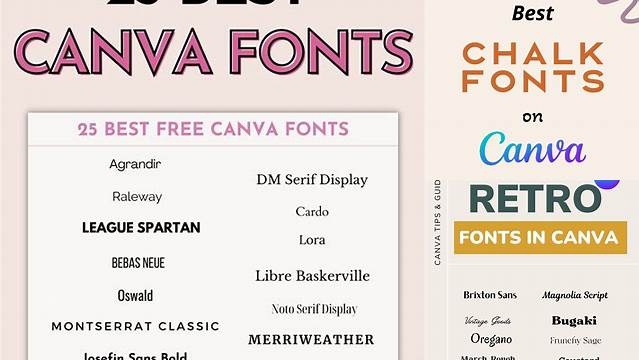
Best Free Canva Fonts: Reddit's Top Picks For 2024
Hey guys! Ever found yourself scrolling through Reddit, desperately seeking the perfect font to elevate your Canva design? You're not alone! Finding the best free Canva fonts can feel like searching for a needle in a haystack, especially with so many options available. But fear not, because we're about to dive deep into the world of Canva typography and uncover some hidden gems that will make your designs pop without costing you a dime. Whether you're crafting social media graphics, presentations, or posters, the right font can make all the difference. So, let's explore the best free Canva fonts Reddit users rave about and discover how to use them to create stunning visuals.
1. Top 10 Free Canva Fonts According to Reddit
So, you're probably wondering, what are the absolute best free Canva fonts that the Reddit community loves? Well, you've come to the right place! We've scoured the forums, read the threads, and compiled a list of the top 10 fonts that get consistent praise. These fonts are not only free but also incredibly versatile, suitable for a wide range of design projects. Think sleek and modern sans-serifs, elegant serifs, and even some fun and quirky display fonts. Each font on this list has been tried and tested by countless designers, ensuring that they'll deliver professional-looking results without breaking the bank. Remember, the right font can transform your design from bland to brilliant, so let's jump in and discover your new favorite! The best free Canva fonts can make a world of difference in the overall aesthetic and impact of your design. It’s not just about choosing something that looks pretty; it’s about selecting a typeface that communicates your message effectively, complements your brand, and resonates with your audience. For instance, if you're creating a logo for a tech startup, you might lean towards a clean, modern sans-serif font. On the other hand, a more traditional business might benefit from an elegant serif font. Understanding the nuances of typography can significantly enhance the professional appeal of your work.
2. Sans-Serif Fonts: Reddit's Favorite Free Options
Sans-serif fonts are often lauded for their clean lines and modern aesthetic, making them a staple in many design projects. The best free Canva fonts in this category are incredibly versatile, working well for everything from body text to headlines. Reddit users particularly appreciate sans-serif fonts for their readability and versatility, especially in digital formats. Think about it – you see sans-serif fonts everywhere, from website navigation to app interfaces, and for good reason. They're easy on the eyes and project a sense of clarity and efficiency. When browsing Reddit threads, you'll often find discussions about fonts like Montserrat, Open Sans, and Lato, which are all excellent choices available for free on Canva. These fonts offer a range of weights and styles, giving you plenty of options to play with. For example, you could use Montserrat Bold for headlines and Montserrat Regular for body text, creating a cohesive and visually appealing layout. Exploring different sans-serif options can open up a world of design possibilities, helping you create everything from minimalist posters to impactful social media graphics. The key is to experiment and see what feels right for your specific project and brand identity. Keep in mind that the best font is one that aligns with your message and enhances the overall user experience.
3. Serif Fonts: Best Free Choices According to Reddit Users
Serif fonts, with their distinctive strokes or “serifs” at the ends of letters, often convey a sense of tradition, elegance, and authority. When it comes to the best free Canva fonts in this category, Reddit users have some strong opinions. Many designers gravitate towards serif fonts for projects that require a touch of sophistication, such as book covers, invitations, or formal documents. Think about the classic look of Times New Roman or Georgia – these fonts have been used for decades in print media for their readability and timeless appeal. However, Canva offers a range of modern serif fonts that are just as versatile and visually striking. Fonts like Playfair Display and Merriweather are frequently mentioned in Reddit discussions as top choices for headings and body text, respectively. Playfair Display, with its high contrast and elegant curves, is perfect for creating eye-catching titles, while Merriweather’s sturdy design ensures readability even at smaller sizes. Experimenting with different serif fonts can add depth and character to your designs, helping you create a visual hierarchy and guide the viewer’s eye. Just remember to consider the overall tone and message of your project when making your selection. A well-chosen serif font can elevate your design and communicate a sense of professionalism and polish.
4. Script Fonts: Free and Stylish Options on Canva (Reddit Approved)
If you're looking to add a touch of personality and flair to your designs, script fonts are the way to go. These fonts mimic the fluidity of handwriting, making them perfect for invitations, logos, and other projects where you want to convey a sense of warmth and authenticity. However, finding the best free Canva fonts in the script category can be tricky. Not all script fonts are created equal – some can be difficult to read, while others may lack the professional polish you're aiming for. That's where Reddit comes in! Designers on Reddit often share their favorite free script fonts on Canva, offering valuable insights and recommendations. Popular choices include Pacifico, a casual and friendly script, and Great Vibes, an elegant and flowing option. These fonts can add a touch of sophistication to your designs, making them stand out from the crowd. When using script fonts, it's important to use them sparingly. Overusing them can make your design look cluttered and hard to read. Instead, use them for headings or short phrases, pairing them with a clean sans-serif font for body text. This creates a balanced and visually appealing design. Experimenting with different script fonts can add a unique touch to your projects, helping you create designs that are both stylish and memorable. Just remember to choose a font that is legible and aligns with the overall tone of your message.
5. Display Fonts: Unique Free Choices Recommended by Reddit
Display fonts are the attention-grabbers of the typography world. These fonts are designed to be eye-catching and memorable, making them ideal for headlines, posters, and other projects where you want to make a statement. However, with so many display fonts available, finding the best free Canva fonts can feel overwhelming. Reddit users often share their favorite hidden gems in this category, offering a wealth of inspiration for designers looking to push the boundaries of creativity. Think about the bold, quirky fonts you see on movie posters or the vintage-inspired typefaces used in retro advertising. Display fonts can add a unique personality to your designs, helping you create a distinct visual identity. Some popular free display fonts on Canva include Bebas Neue, a tall and impactful sans-serif, and Oswald, a versatile font that works well for both headlines and body text. These fonts offer a range of styles and weights, giving you plenty of options to play with. When using display fonts, it's important to consider the context of your design. A font that looks great on a poster might not be suitable for a business card. Experiment with different combinations and see what works best for your specific project. The key is to find a font that captures the essence of your message and helps you stand out from the crowd. A well-chosen display font can be the secret ingredient that transforms your design from ordinary to extraordinary.
6. Pairing Fonts: Free Canva Font Combinations Reddit Loves
Choosing the right font is just half the battle. To create truly stunning designs, you need to master the art of font pairing. The best free Canva fonts can look even better when combined thoughtfully, creating a visual harmony that enhances the overall message. Reddit users frequently discuss their favorite font pairings, offering valuable insights and inspiration for designers of all levels. Think of font pairing like creating a musical composition – you want to choose fonts that complement each other, creating a balanced and visually appealing result. A classic pairing is a sans-serif font for headlines with a serif font for body text. This combination provides a clear visual hierarchy, making it easy for the viewer to navigate the design. For example, Montserrat (sans-serif) pairs beautifully with Merriweather (serif), creating a clean and professional look. Another popular pairing is using different weights of the same font family. For instance, you could use Open Sans Bold for headlines and Open Sans Regular for body text. This creates a cohesive design while still providing visual contrast. Experimenting with different font pairings can be a fun and rewarding process. Canva offers a range of tools and resources to help you find the perfect combination. Just remember to choose fonts that are legible and align with the overall tone of your project. A well-paired font combination can elevate your design and communicate your message effectively.
7. How to Use Canva Fonts for Free: A Reddit User Guide
Canva is a powerful design tool, but it can be a bit overwhelming for beginners. If you're new to Canva and wondering how to use the best free Canva fonts, you're in the right place. Reddit users often share helpful tips and tricks for navigating Canva's interface, making it easier for everyone to create stunning designs. The first step is to create a Canva account, which you can do for free. Once you're logged in, you can start exploring the vast library of fonts available. Canva offers a wide range of free fonts, as well as some premium options that require a subscription. To find free fonts, simply search for fonts in the Canva editor and filter by “free.” You can also browse fonts by category, such as sans-serif, serif, or script. Once you've found a font you like, you can easily add it to your design by clicking on the text element and selecting the font from the dropdown menu. Canva also allows you to upload your own fonts, which can be useful if you have a specific font in mind that's not available in the Canva library. However, for most projects, the free fonts available on Canva will be more than sufficient. Experimenting with different fonts and font combinations is key to finding the perfect look for your design. Don’t be afraid to try new things and see what works best. With a little practice, you'll be using Canva like a pro in no time!
8. Canva Font Licensing: What Reddit Users Need to Know
Understanding font licensing is crucial for any designer, whether you're using free or premium fonts. The best free Canva fonts come with certain licensing restrictions that Reddit users need to be aware of to avoid any legal issues. Font licensing determines how you can use a font, including whether you can use it for commercial purposes, embed it in digital documents, or modify it. Canva provides clear information about the licensing terms for each font, but it's always a good idea to double-check before using a font in your project. Most of the free fonts on Canva come with a license that allows you to use them for both personal and commercial projects. However, there may be some restrictions on how you can distribute or modify the font. For example, you may not be allowed to sell the font or create derivative works without permission from the font's creator. It's also important to be aware of the licensing terms for any fonts you upload to Canva yourself. If you're using a font that you downloaded from a third-party website, make sure you have the appropriate license for its intended use. Ignoring font licensing can lead to copyright infringement, which can result in legal penalties. Taking the time to understand the licensing terms for each font you use can save you a lot of headaches in the long run. When in doubt, it's always best to err on the side of caution and seek legal advice.
10. Canva Font Colors: Reddit's Advice for Visual Appeal
Color plays a crucial role in design, and the colors you choose for your fonts can have a significant impact on the overall visual appeal of your project. The best free Canva fonts can be further enhanced by selecting the right color palettes. Reddit users often share their advice on how to use font colors effectively in Canva designs. Color can evoke emotions and create a mood, so it's important to choose colors that align with the message you're trying to convey. For example, blue often conveys a sense of trust and stability, while red can evoke excitement or urgency. When choosing font colors, it's important to consider the background color of your design. A font color that contrasts with the background will be more legible and visually striking. For example, white text on a dark background is a classic combination that is both easy to read and visually appealing. Canva offers a wide range of color options, including a color picker that allows you to choose custom colors. You can also use Canva's color palettes to find complementary colors that work well together. Experimenting with different color combinations is key to finding the perfect look for your design. A well-chosen color palette can make your design more visually appealing and help you communicate your message effectively. Remember to consider the principles of color theory when selecting font colors, and don't be afraid to try new things. With a little practice, you'll be using color like a pro!